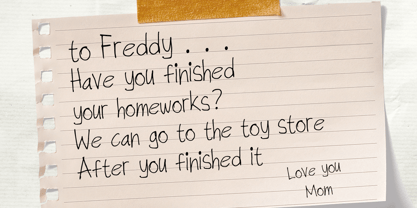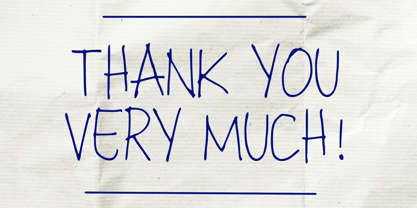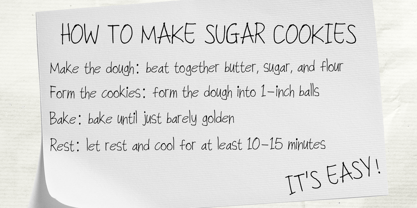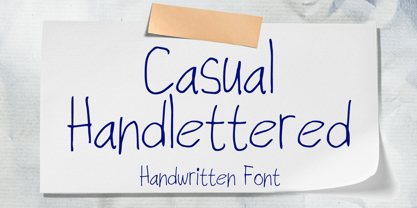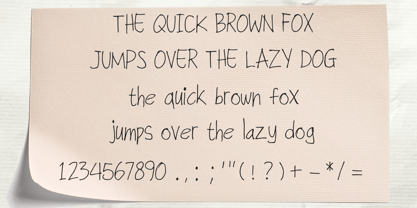
Casual Handlettered
by Mvmet
The Casual Handlettered Font Family was designed by Gabriel Valentinus and published by Mvmet. Casual Handlettered contains 1 styles. More about this family
Casual Handlettered is a thin, playful, and expressive pen font that enhances a wide range of design projects. Perfect for stickers, t-shirt designs, captivating logo creations, magazine or book covers, comics, and cartoon illustrations, this font adds a unique flair to your work. Its charming style introduces a trendy touch, making it suitable for both personal and professional applications. Elevate your designs with this versatile font that stands out in any creative endeavor, offering a delightful blend of creativity and style.
Designers: Gabriel Valentinus
Foundry: Mvmet
Casual Handlettered